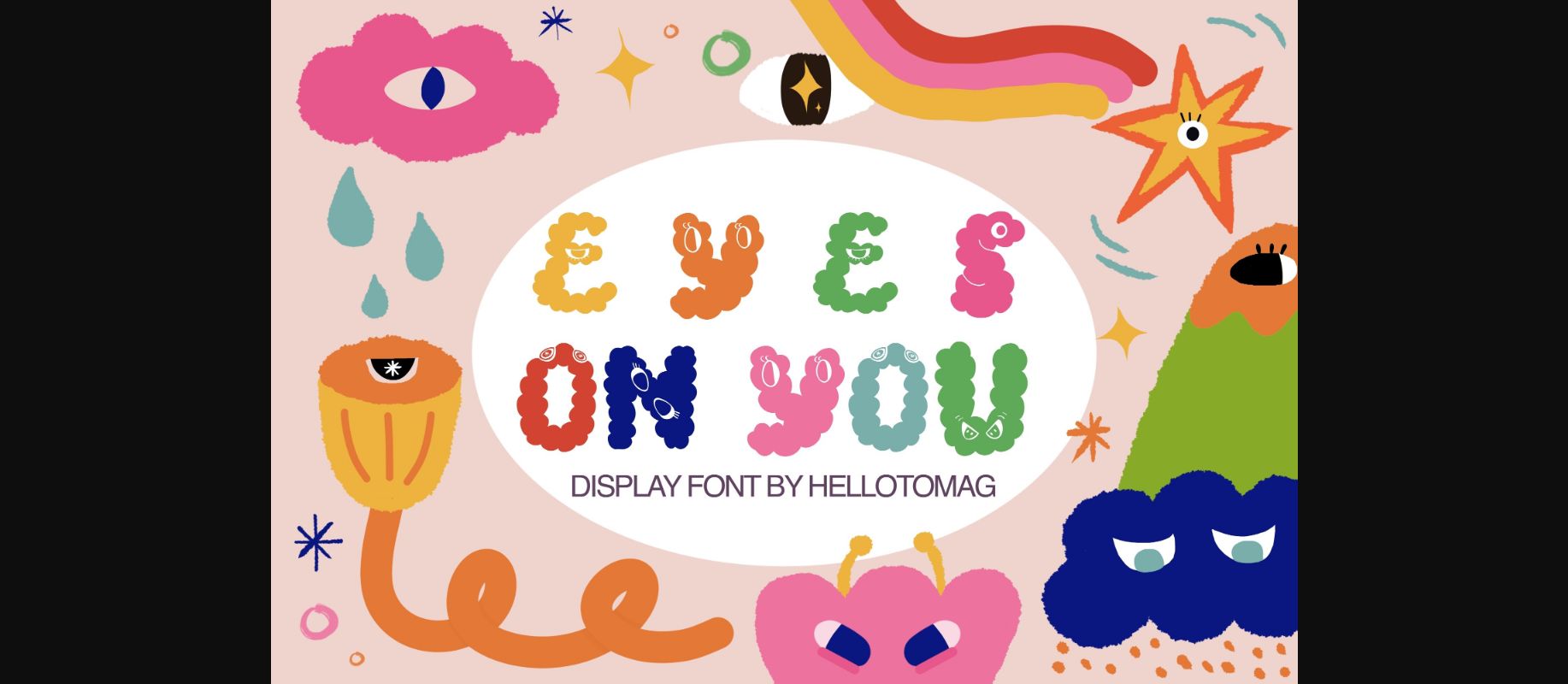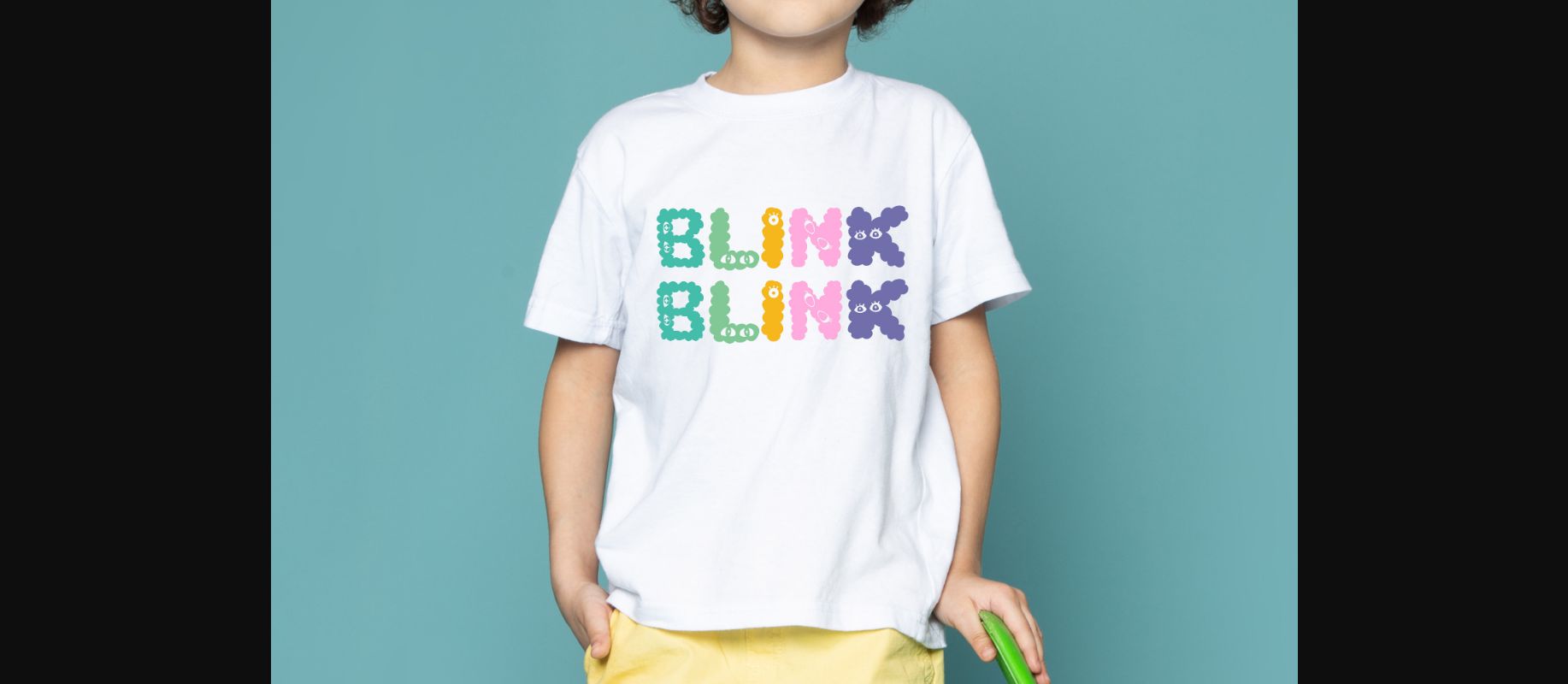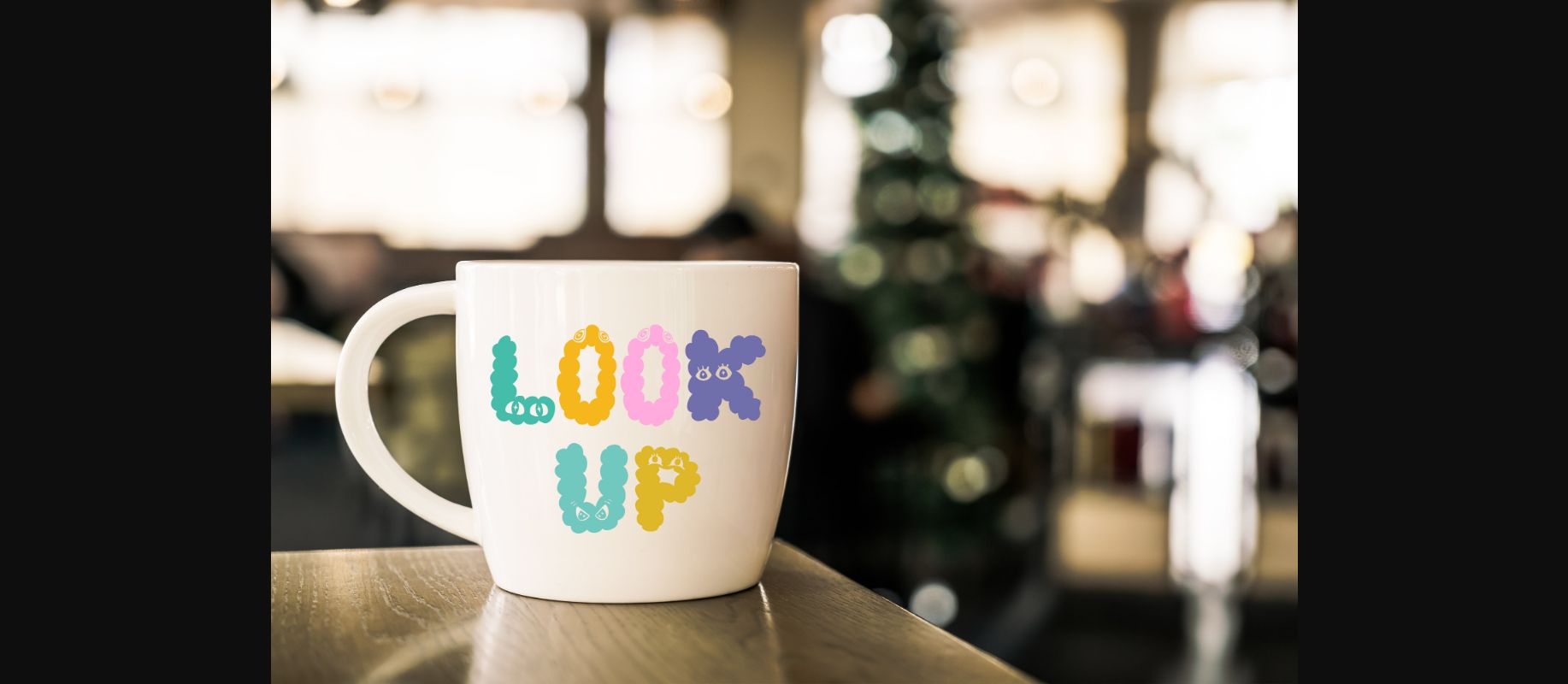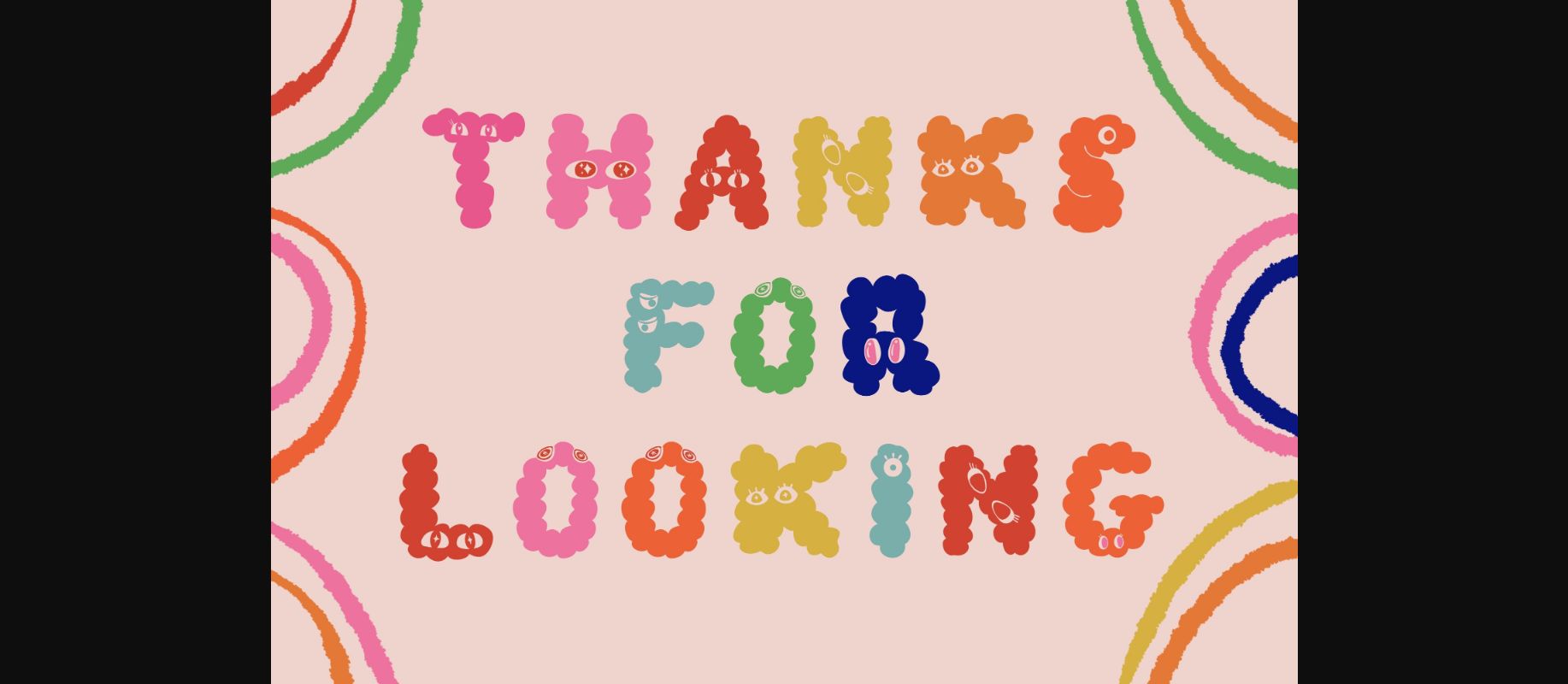
About Eyes on You Font
This font is good because the letters have eyes. Eyes on anything make it cute and/or quirky. Only for uppercase display from A to Z. This font is suitable for T-shirt designs, tote designs, and anything you want to add a touch of quirkiness and fun. Special features are the many different eye expressions.